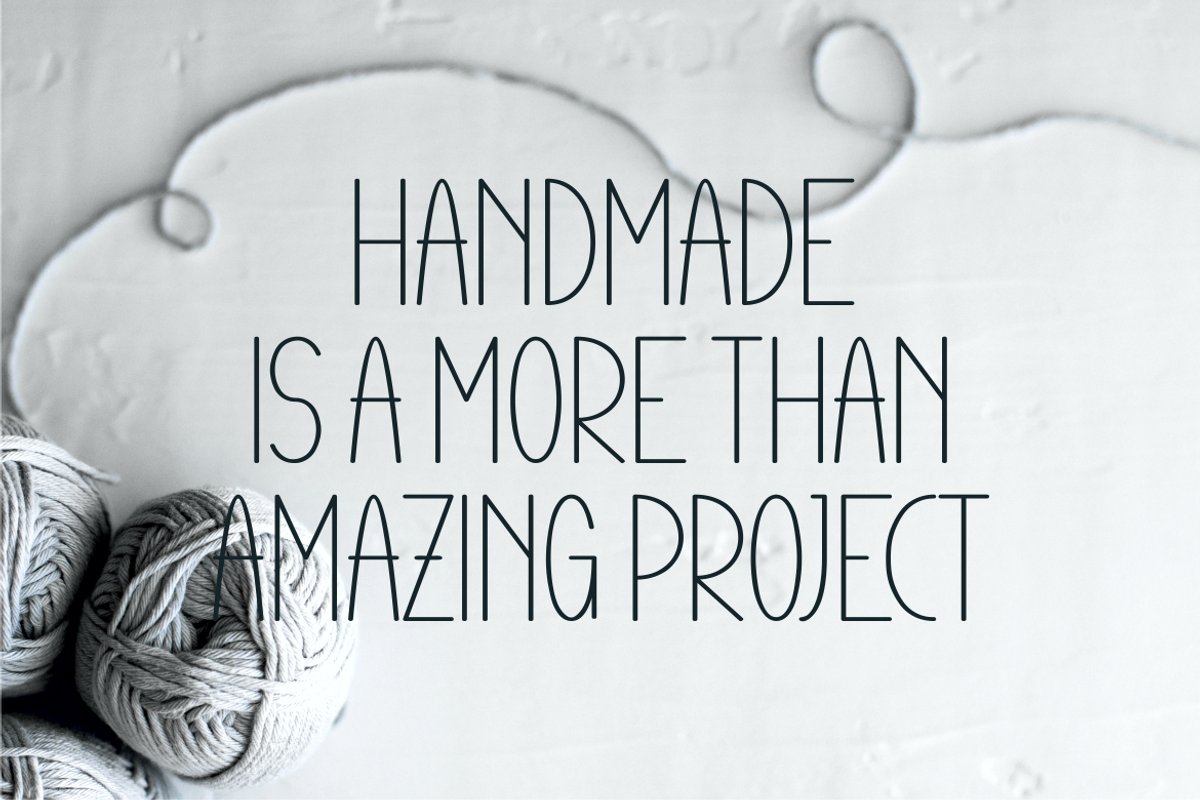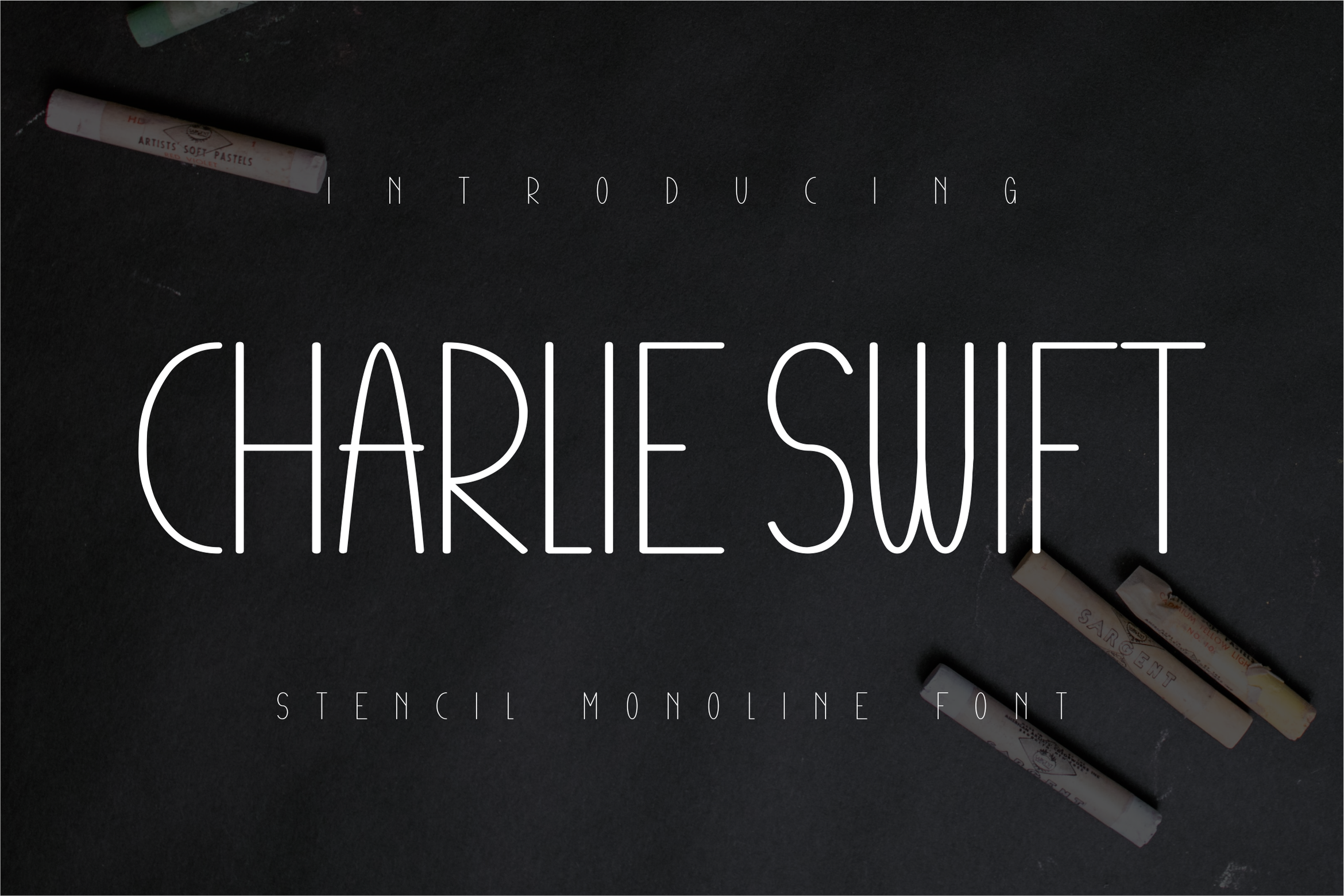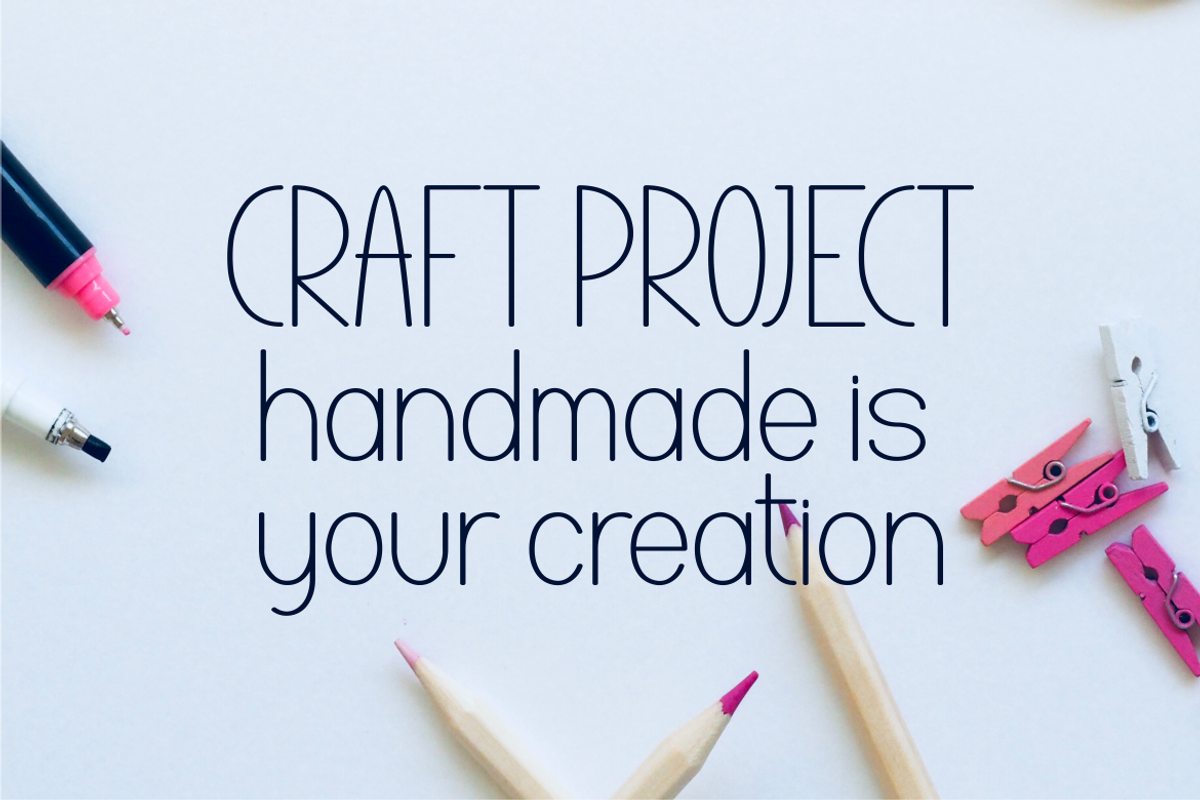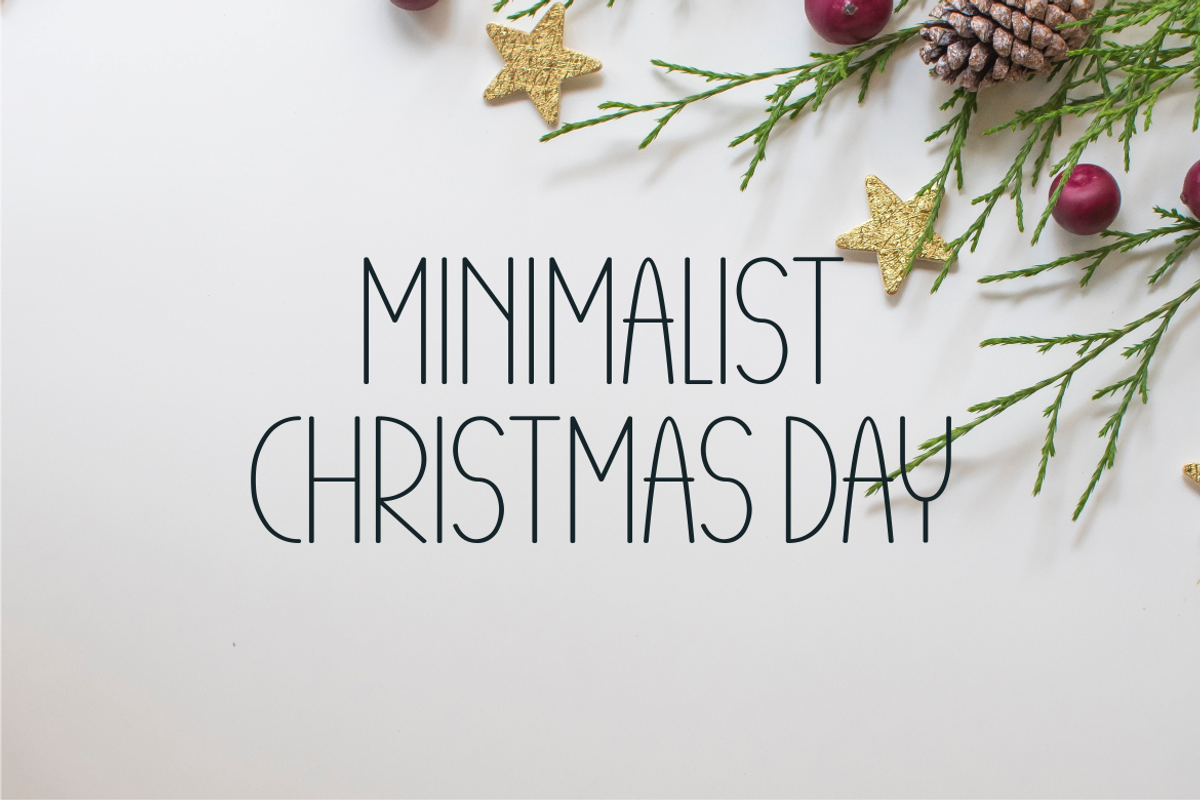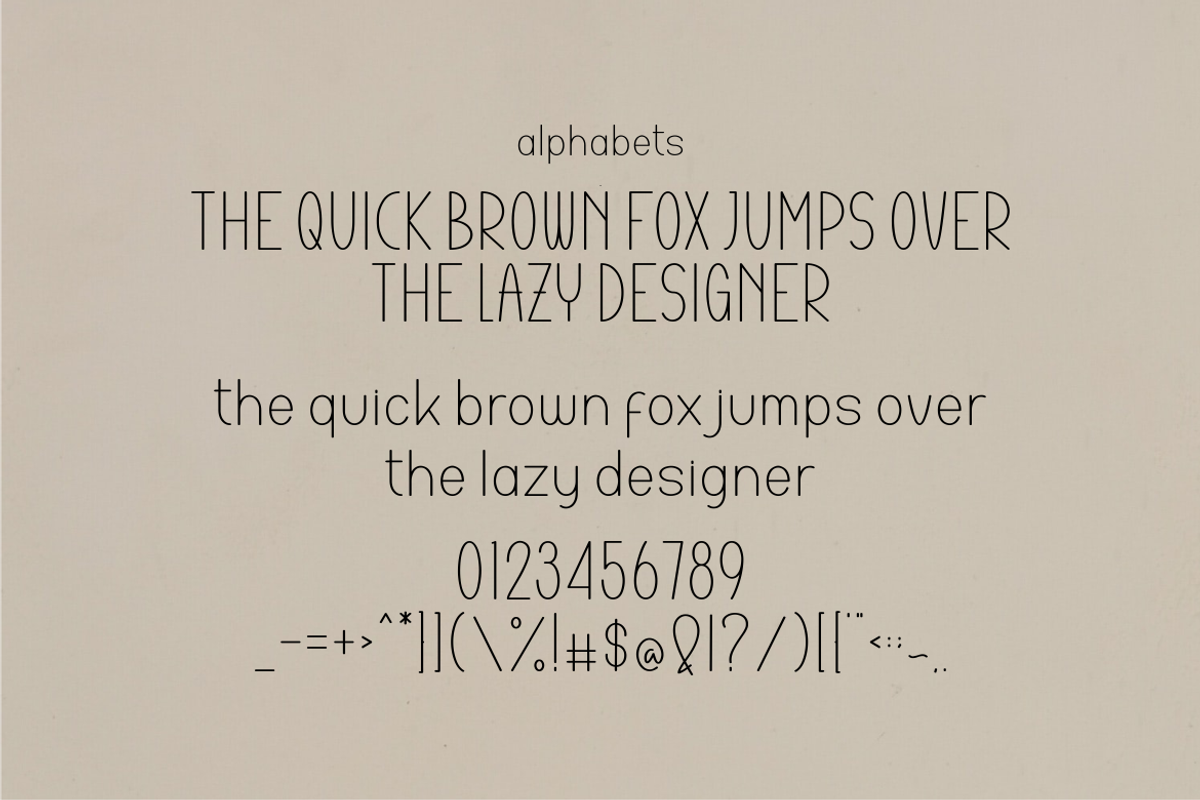
Charlie Swift Font
Charlie Swift Font It has a elegant, classy look and modern. It’s a great font for fashion, apparel projects, signature, album cover,logo, branding, magazine, social media, & advertisements, but also works great for other projects.